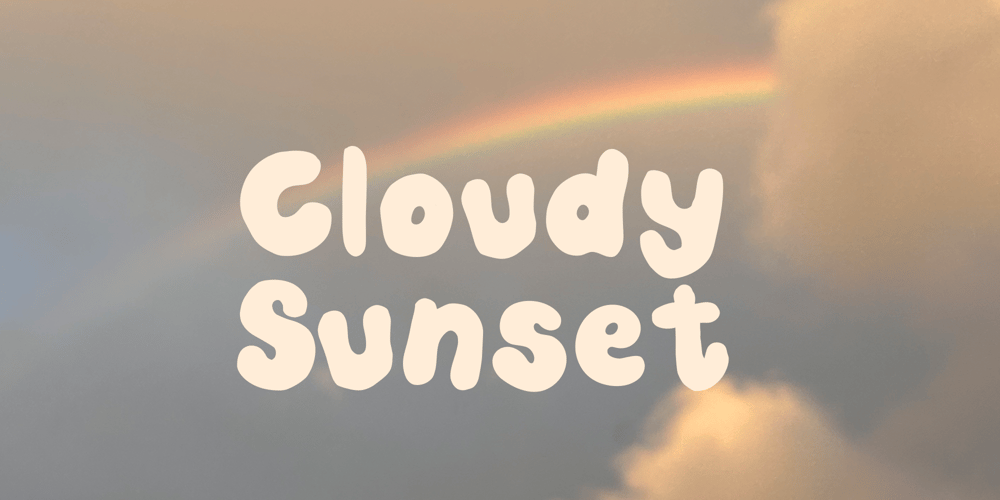
Cloudy Sunset Font Family was designed by Elise Malpel and published by Elise Malpel. Cloudy Sunset contains 1 styles and family package options. Cloudy Sunset is a playful, trendy, hand-drawn font with a bubbly, bouncy, and fun personality. It will make it look like you’re a great artist who doodled your own font!Perfect for your logos or display needs.Inspired by foam, clouds, and dreams, it works well for a foodie universe, a spooky universe, a childhood universe, a hippie or 70s universe, and many other creative directions.